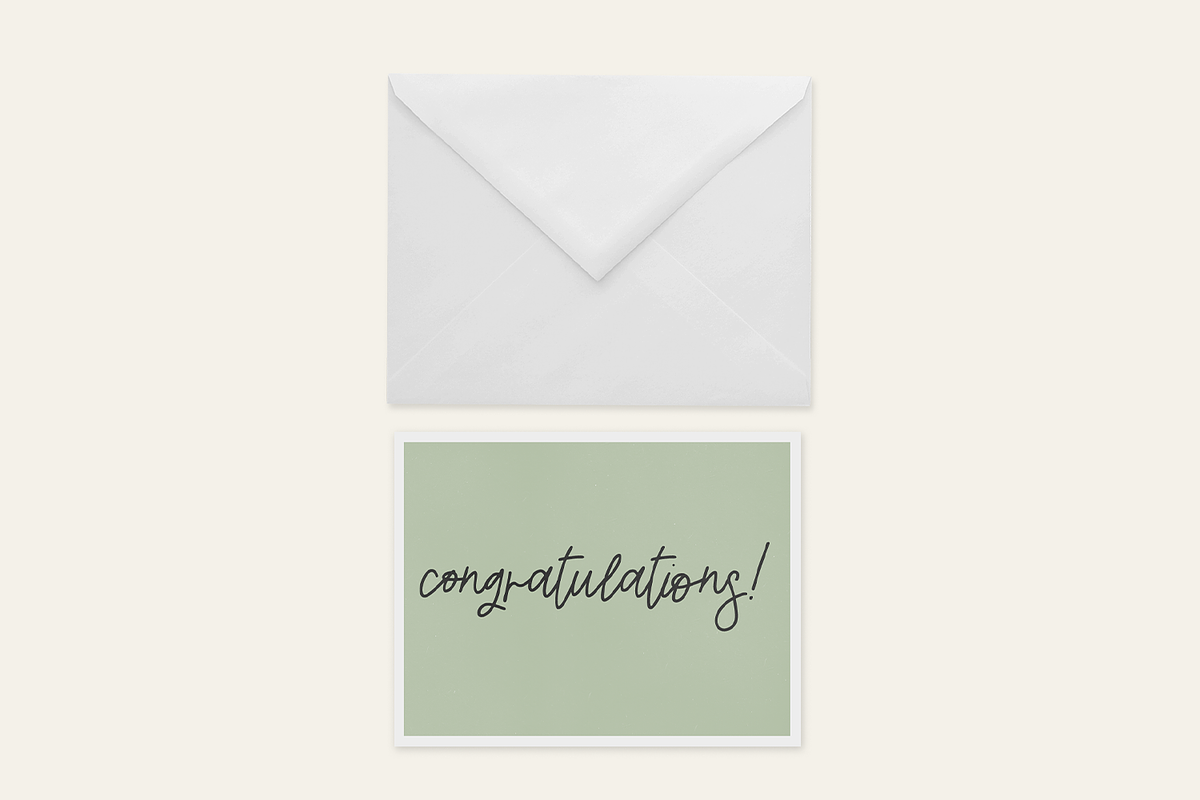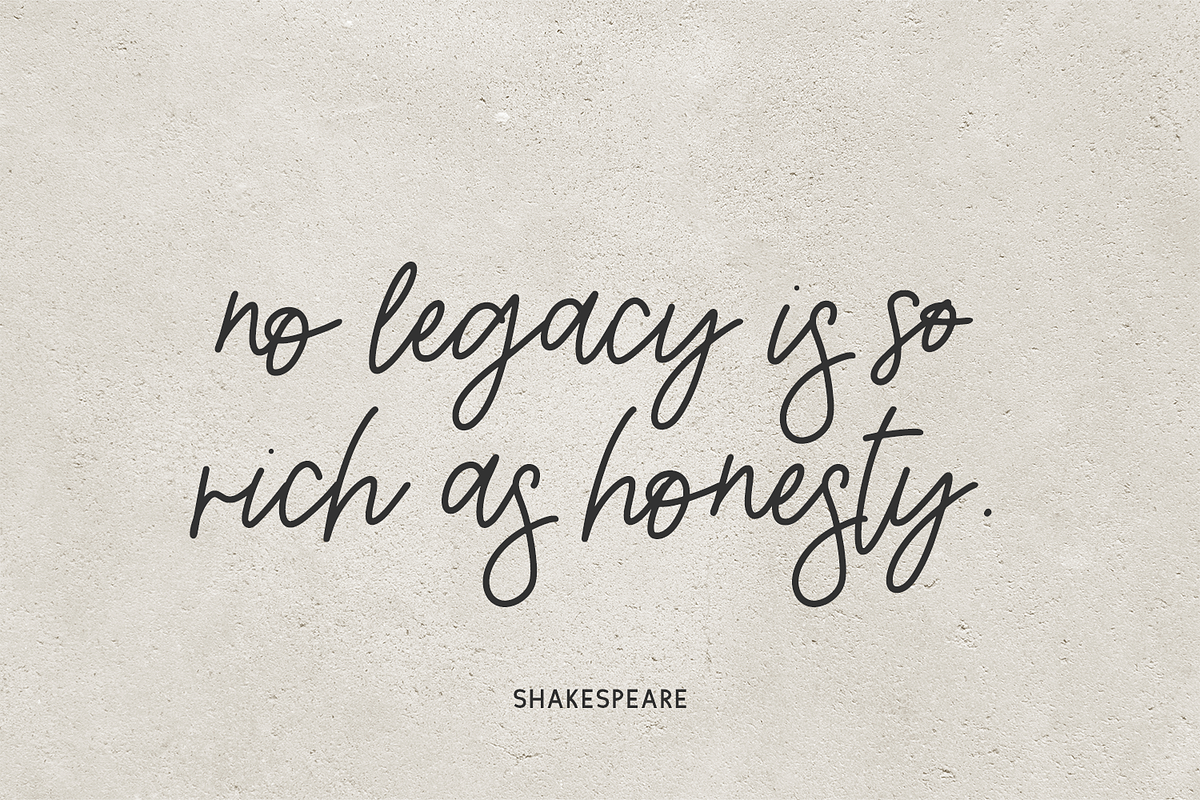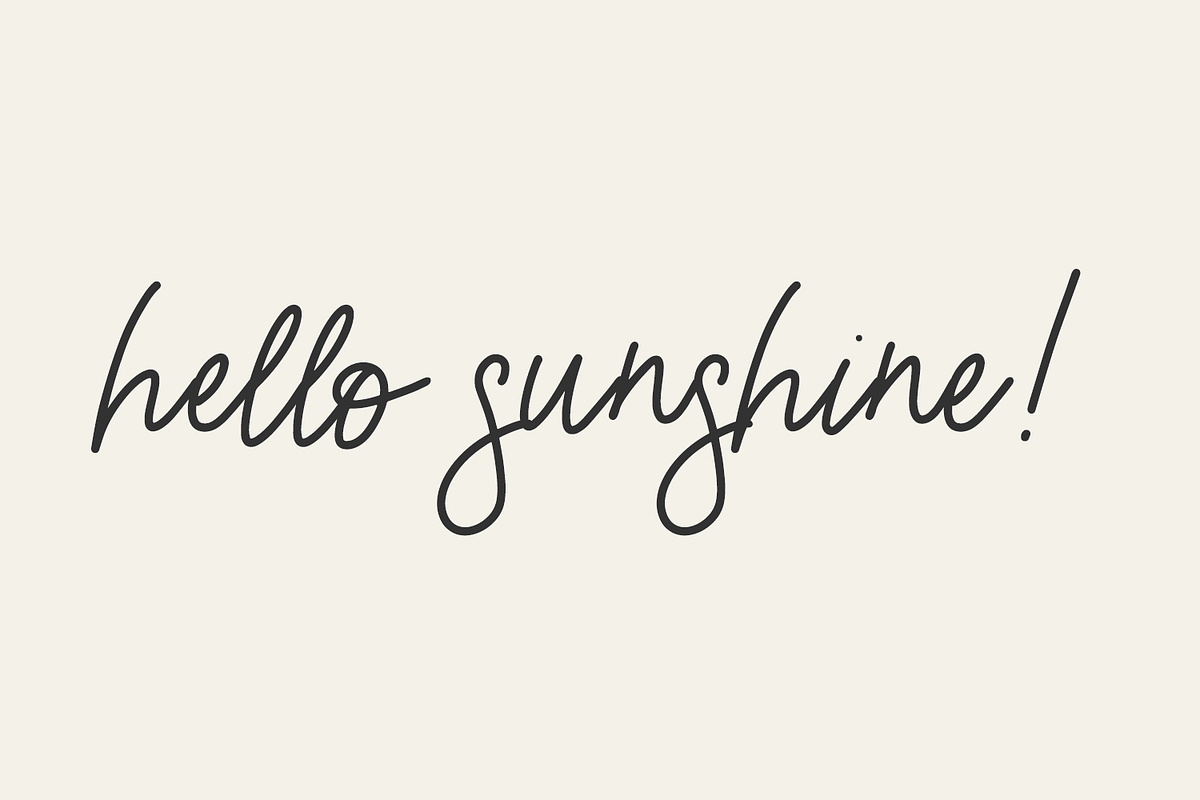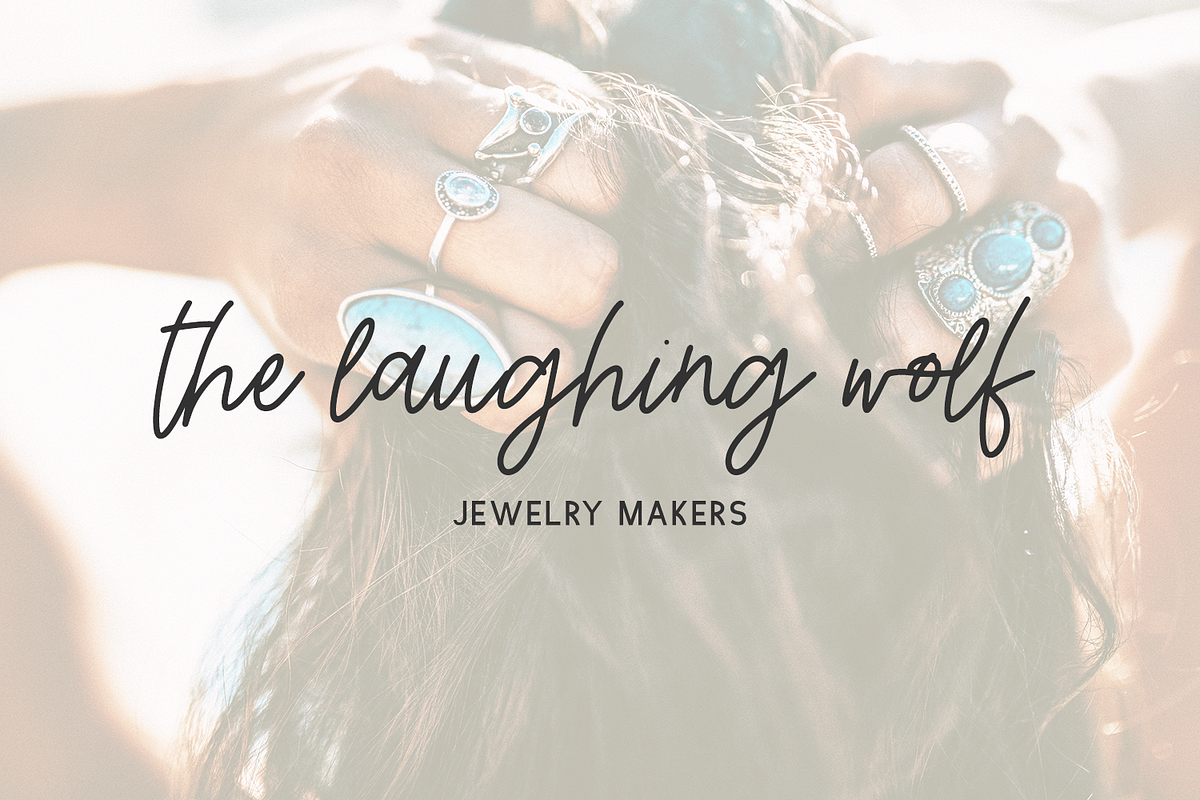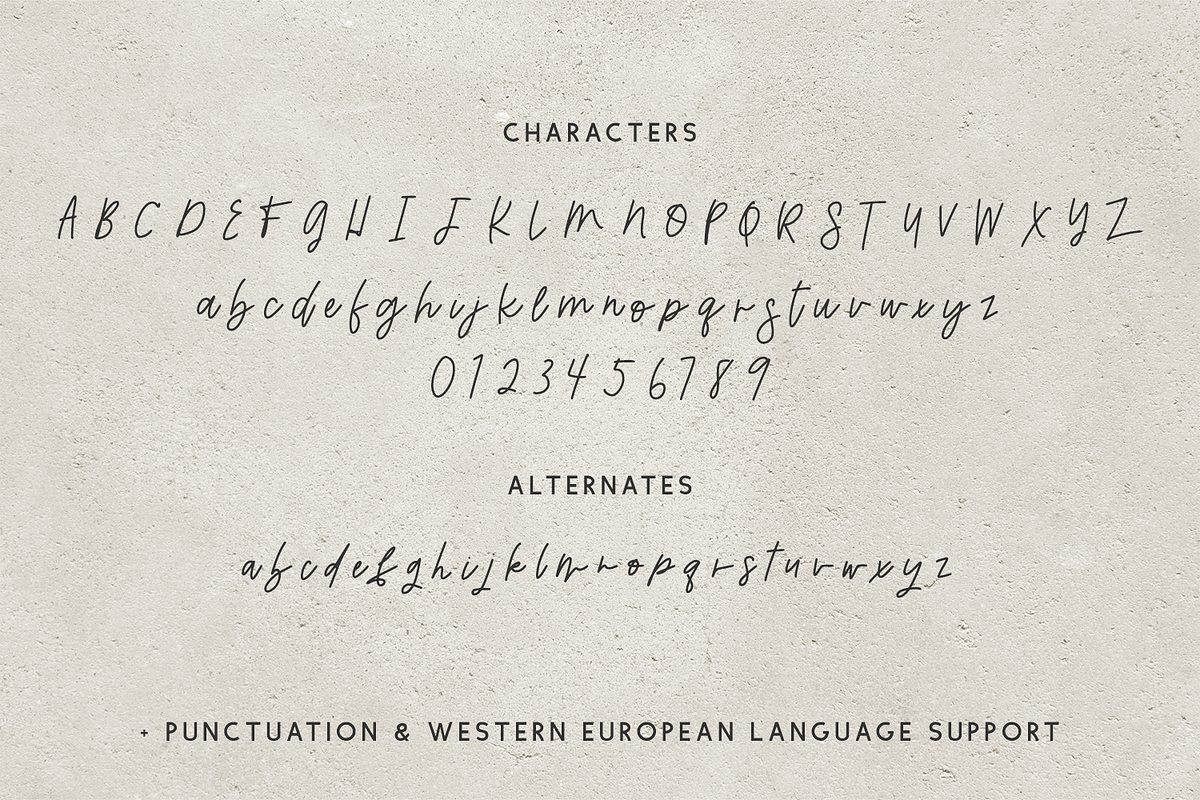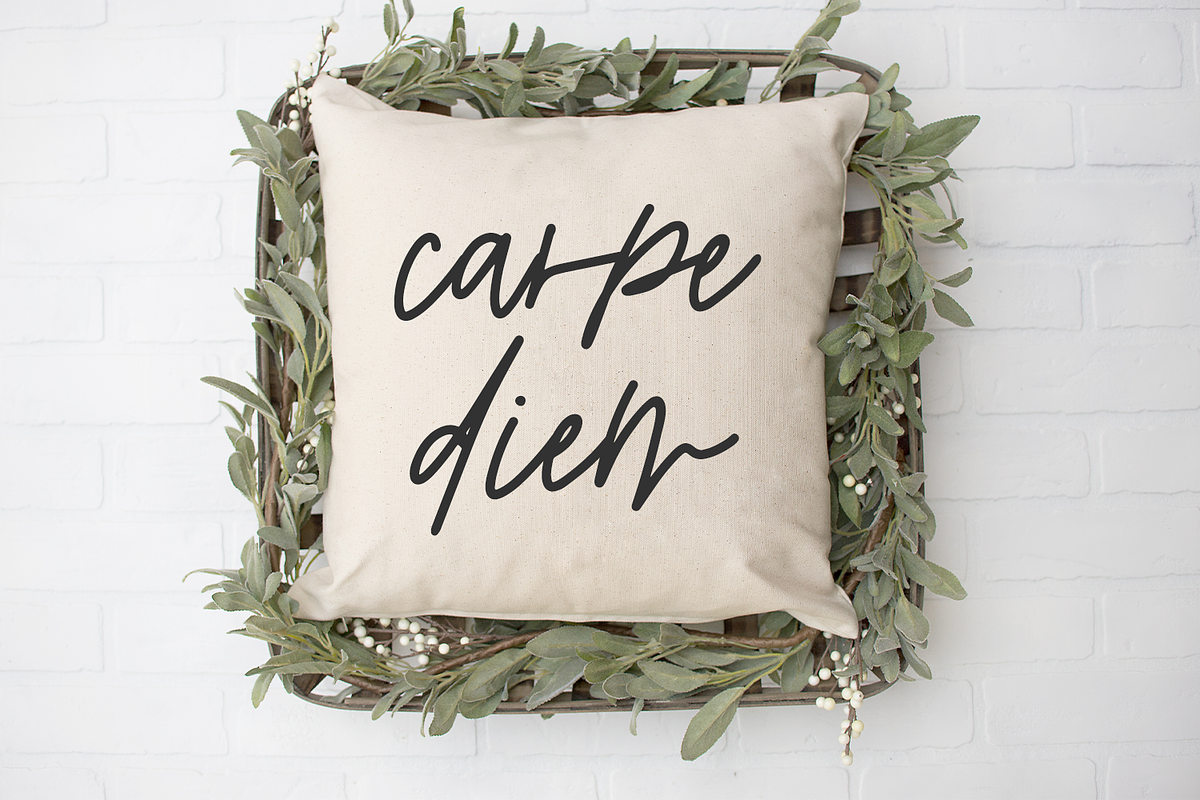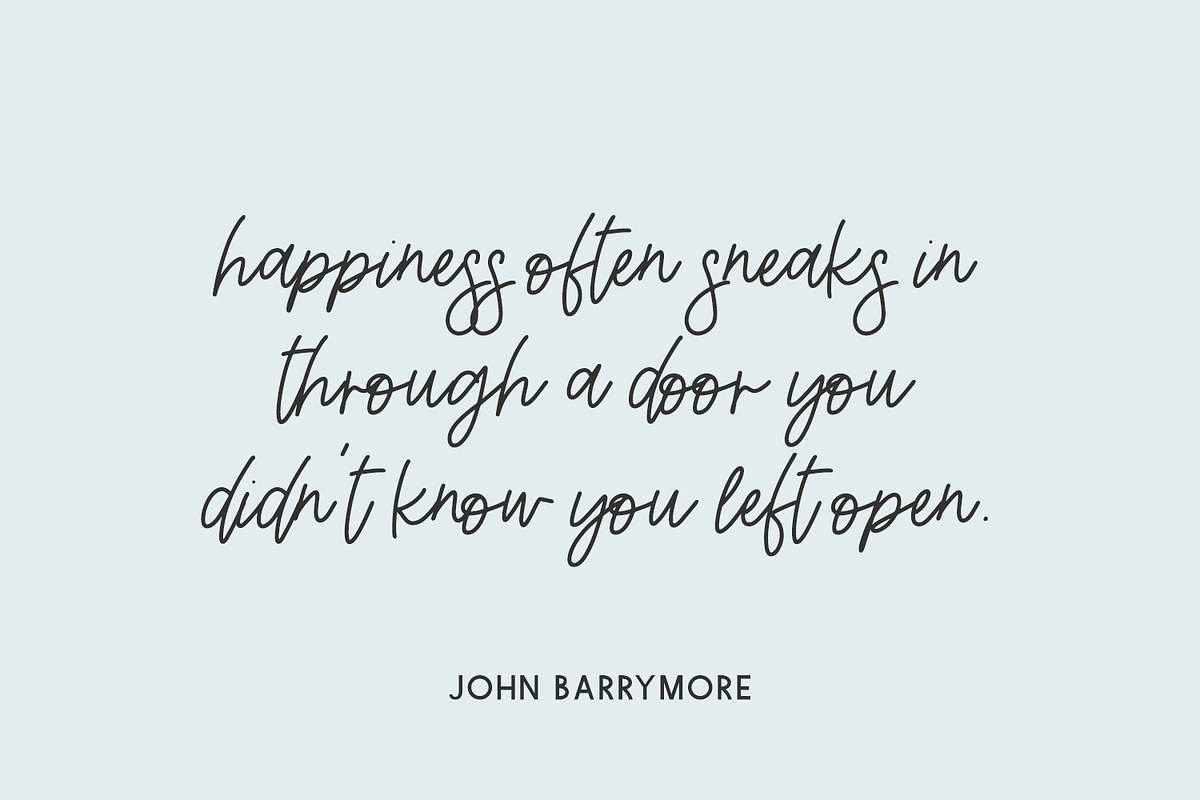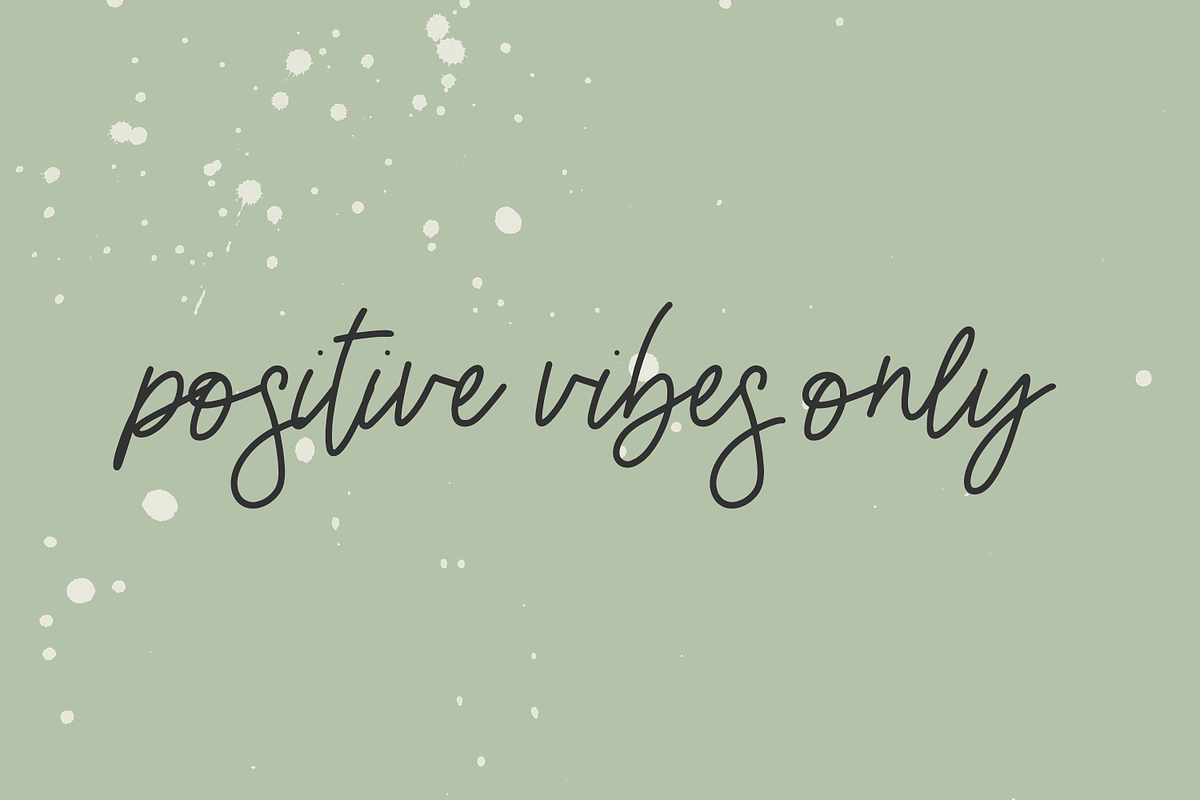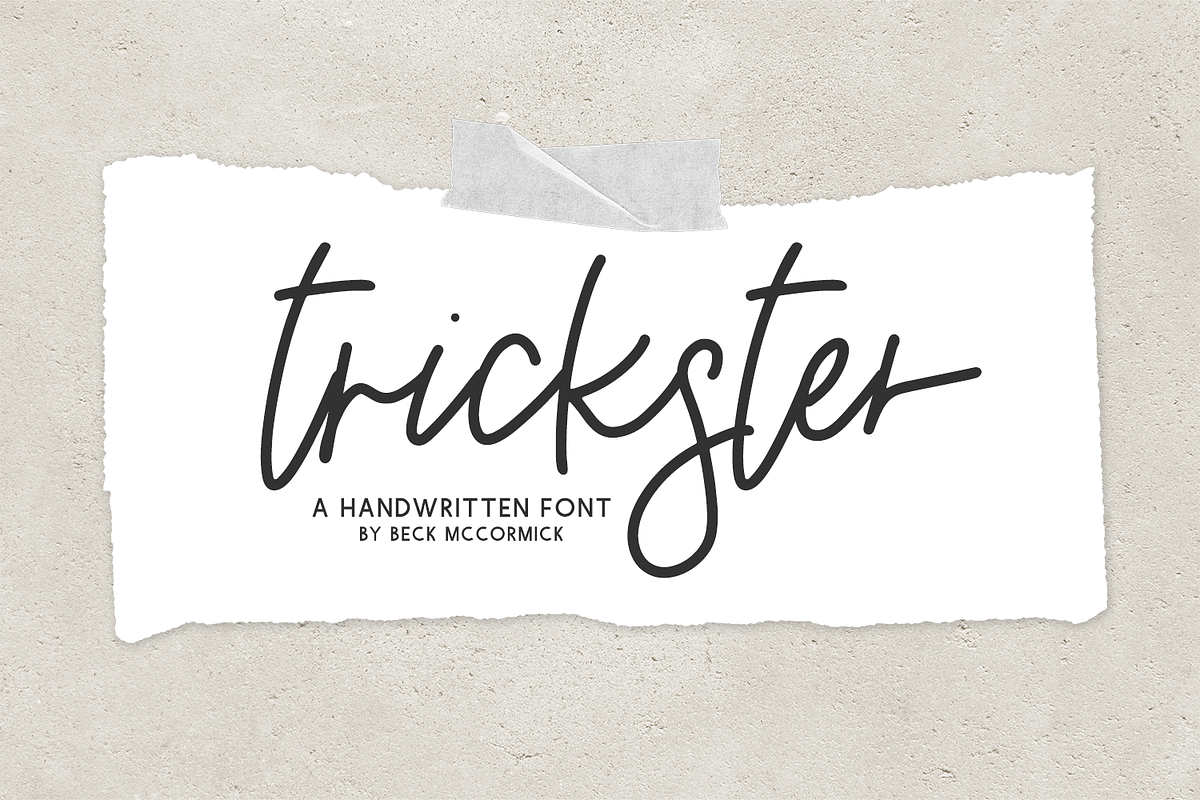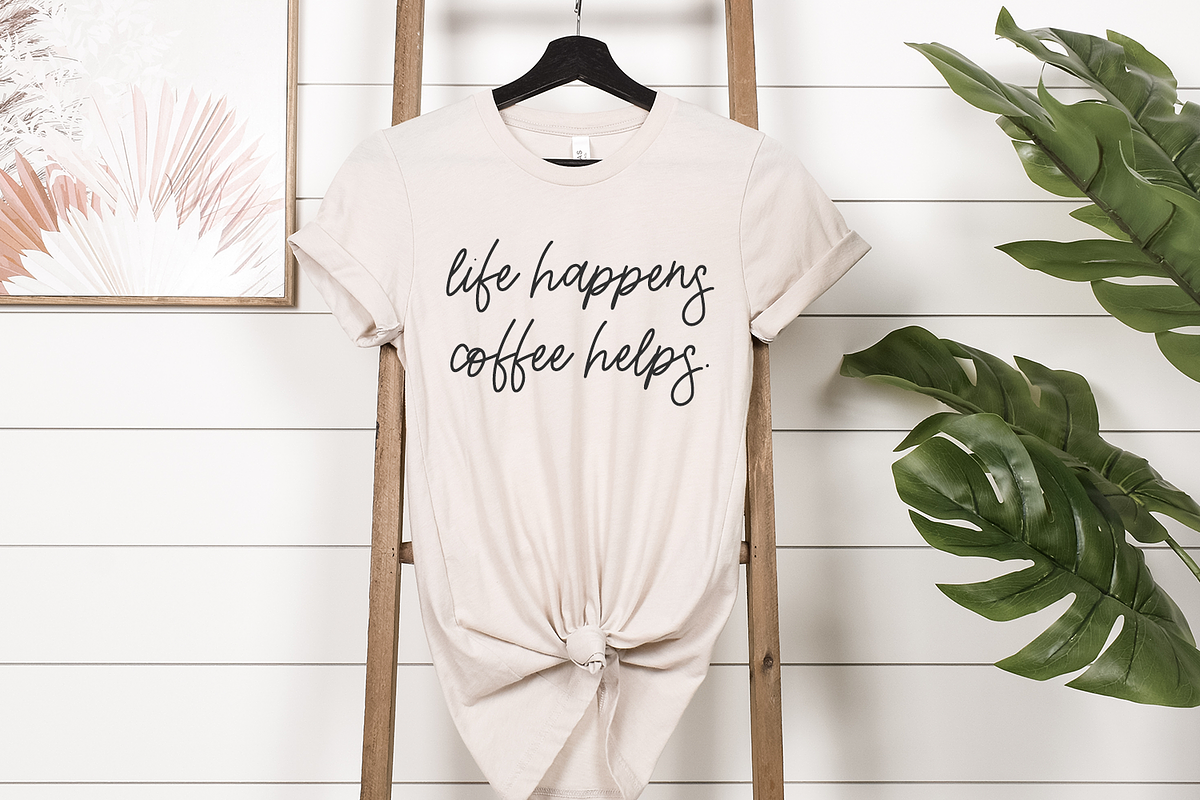
Trickster Script
Introducing Trickster, a modern handwriting font.
Trickster is best for:
- modern projects with your Cricut or Silhouette machine, or your SVG design business
- farmhouse decor and crafts
- logos + branding
- digital planners & apps like Goodnotes
- website design + website accents, blog design
- clean print design, like magazines + flyers
- header elements that need handwritten touch
- quote graphics for social media
- graphic tee shirt design & other apparel
Trickster includes:
- full upper + lowercase characters
- numbers + punctuation
- Western European Language Support
- 26 alternate characters